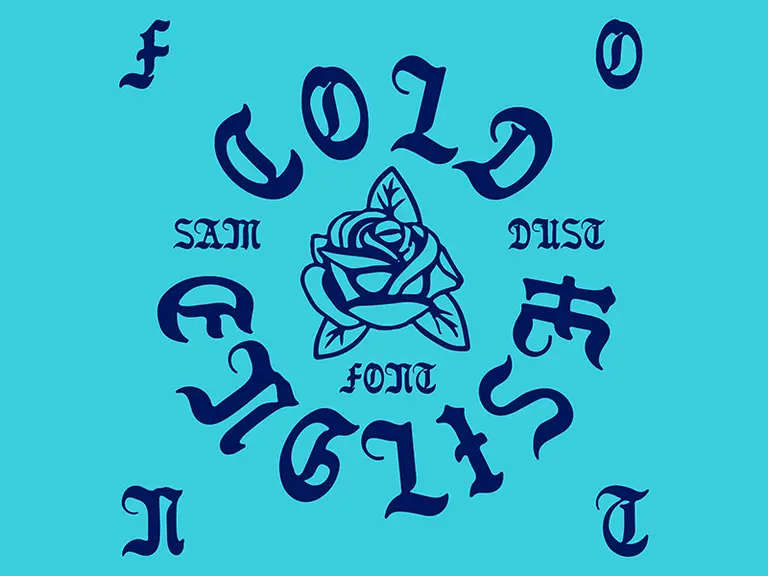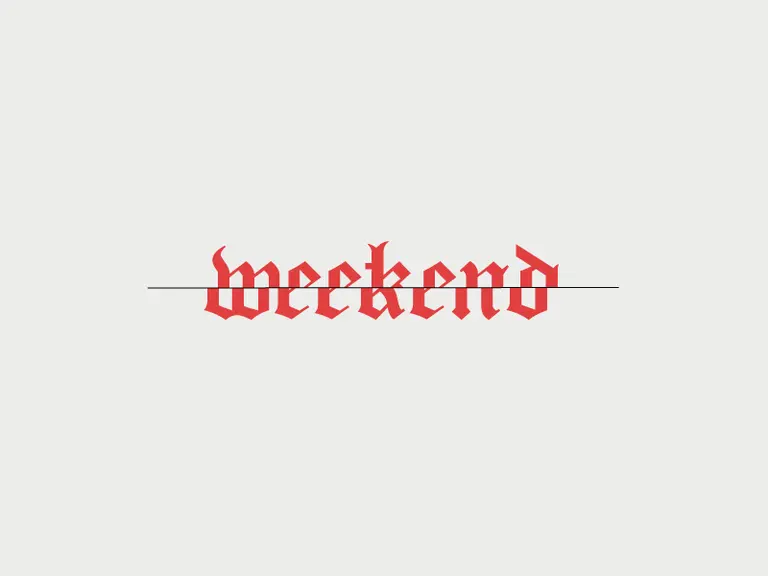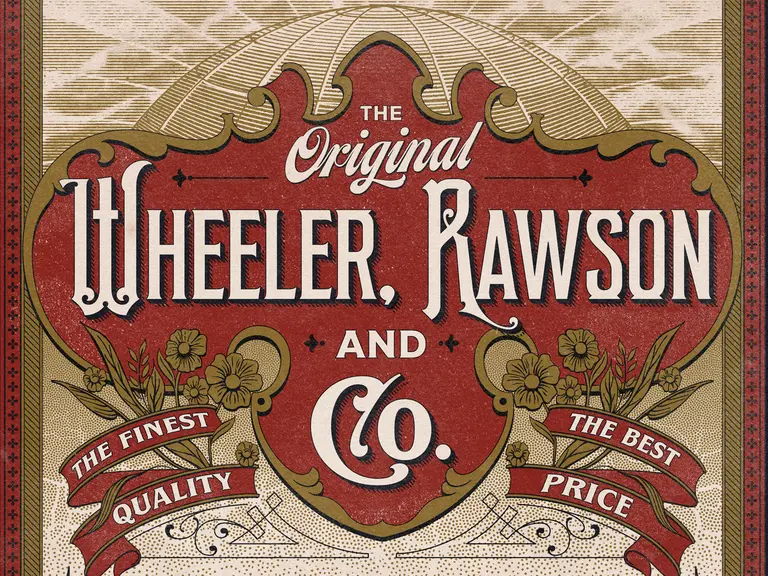
In with the old: designing with Old English font
Old English font is one of those typefaces that really grabs your attention with its intricate and ornate style. A favorite among designers and typographers for centuries, this unique font isn’t just pretty to look at; it’s also a testament to the artistry of lettering and is rich in history and cultural significance.
Let's take a closer look at where Old English font comes from, what makes it so distinctive, and why it’s still relevant in modern design. We'll also dive into how to use an Old English typeface in Linearity Curve(formerly Vectornator).
What is Old English font?
Old English font is a medieval script that goes by several names: Gothic script, Fraktur font, Barbarian script, and Blackletter font, to name a few.
This font style is reminiscent of the past and evokes an appearance of majesty and royalty. And who doesn't want to make their designs look regal?
This style couldn’t be more perfect for the current popularity of the vintage aesthetic. Everyone loves retro designs lately, and that goes for fonts too.
People are embracing vintage styles in their homes, clothing, and graphic designs. We’ve seen vintage logo designs, remade vintage movies, and retro '70s styles exploding on the runways.
Lately, we’ve also been seeing a resurgence of Old English forms in advertisements, web design, and even tattoos.
The history of Old English font
A font that goes by many, many names, Old English was the first font ever invented.
This calligraphic style of writing first evolved during the 12th century in Europe and different versions of it continue to be used today. There have been countless adaptations of the Old English Font (or Blackletter font, or Gothic font, whatever you want to call it) among various European languages.
To this day, artists are still coming out with new iterations on this classic font.
A few more popular font families are known as Fraktur, Rotunda, Textura, and Schwabacher. Each with its own unique take on the classic font.
During the 12th century in Europe, literacy began to increase, as more and more people were learning how to read and write. All books were handwritten, which created a need for a common font or hand-lettering style.
In the 14th century, Johannes Gutenburg (known for introducing printing to Europe with his now-famous printing press) popularized Old English when he printed his first bible. This bible was one of the first books distributed among common people.
Since then, Old English has made its way through various generations of typography.
Despite the name, Old English font isn’t unique to the English language. This font style was used in Germany, France, Italy, and other countries from the 12th century until the 18th century.
In Italy, this script was often known as Gothic script, and there are written records of people using and writing about this style in Italy around the 15th century.
The rising demand for books in Europe created more widespread usage and knowledge of this style of Old English script. Though the name of this font changed depending on the time and place, its distinct style is undeniably recognizable.
This letter style has been recently re-popularized by computer companies who use it on their websites and social media for a retro feel. And, unexpectedly, it has become popular in rap culture as well.
Old English font really had a pop culture moment when rapper Kanye West used an Old English-style font in his Life of Pablo merch that exploded into popularity in 2016.
When this hit album dropped, the merchandise was everywhere, and Old English font had its 10 minutes of fame as one of the biggest fonts in fashion. But, as we know now, Old English isn’t a one-hit-wonder.
This may have been when designers realized that Old English font was cool again, but it’s been a writing staple for centuries. We’re just happy that this unique font style is getting the attention it deserves.
Now, let’s look at what Old English font is and how we can recognize it when we see it.
Like any good brand, Old English has gone through some rebranding in the past few centuries, going by different names in each part of the world.
Let’s break it down to the two primary aliases for Old English font (Gothic font and Blackletter font), and talk about how they compare to Old English.
And, sure, they’re all essentially the same, but there are slight differences in each. Let's delve in to start understanding this font family.